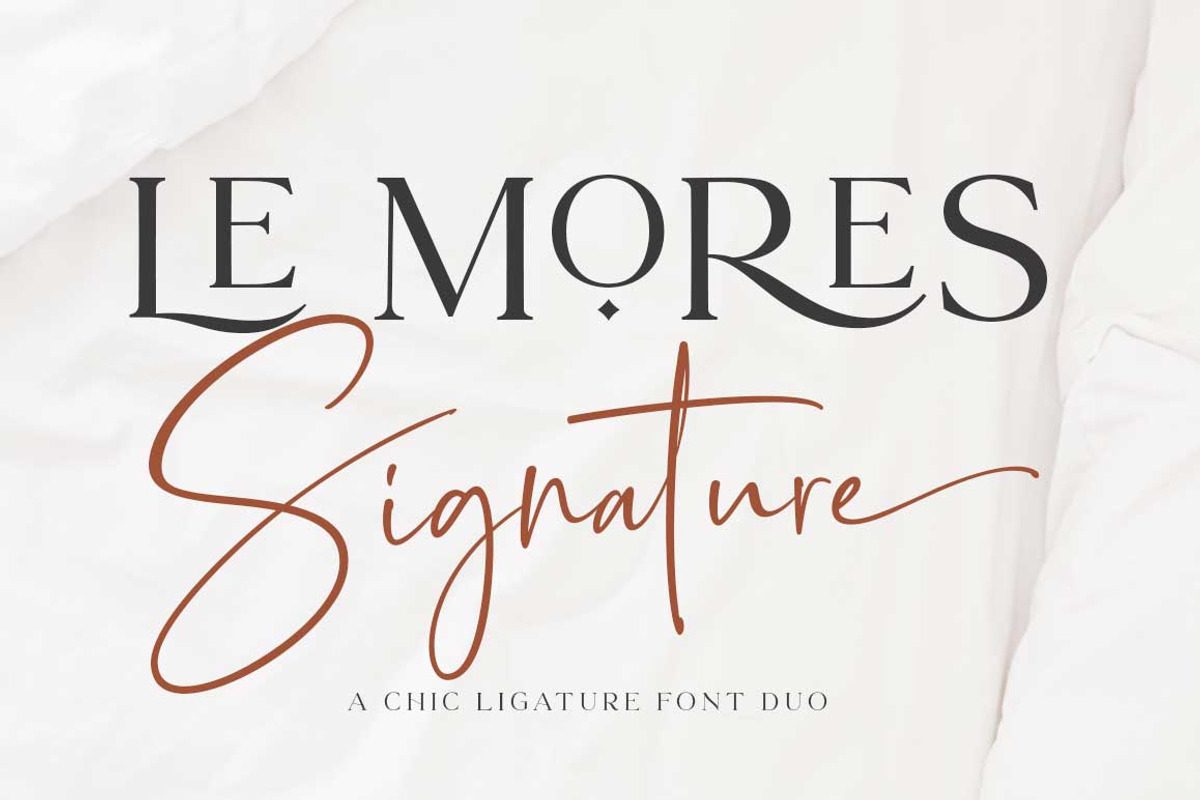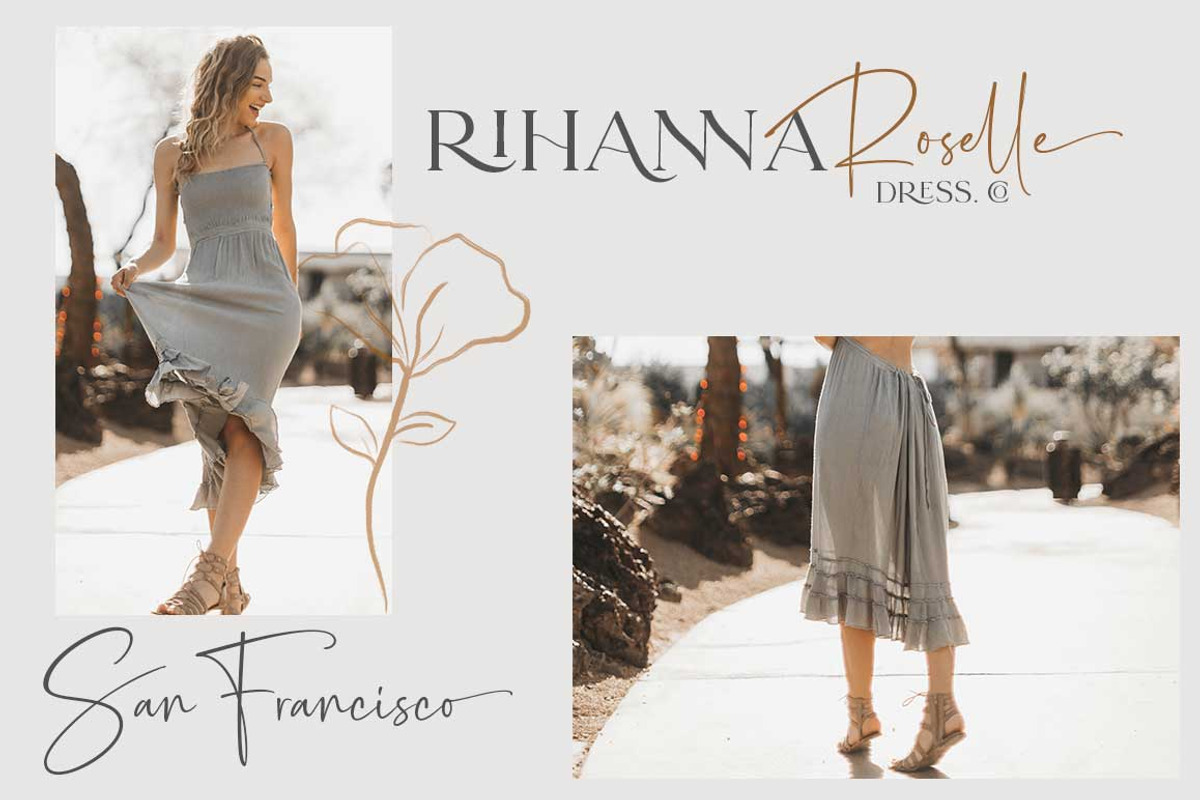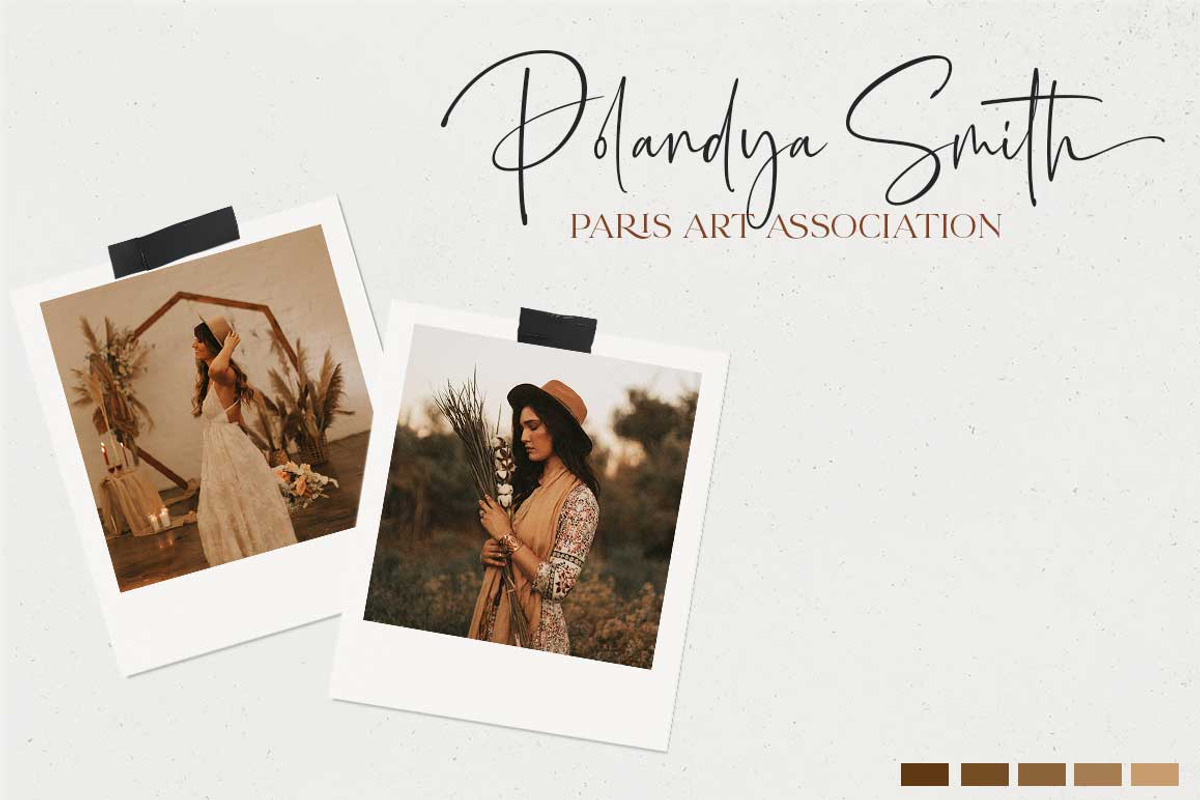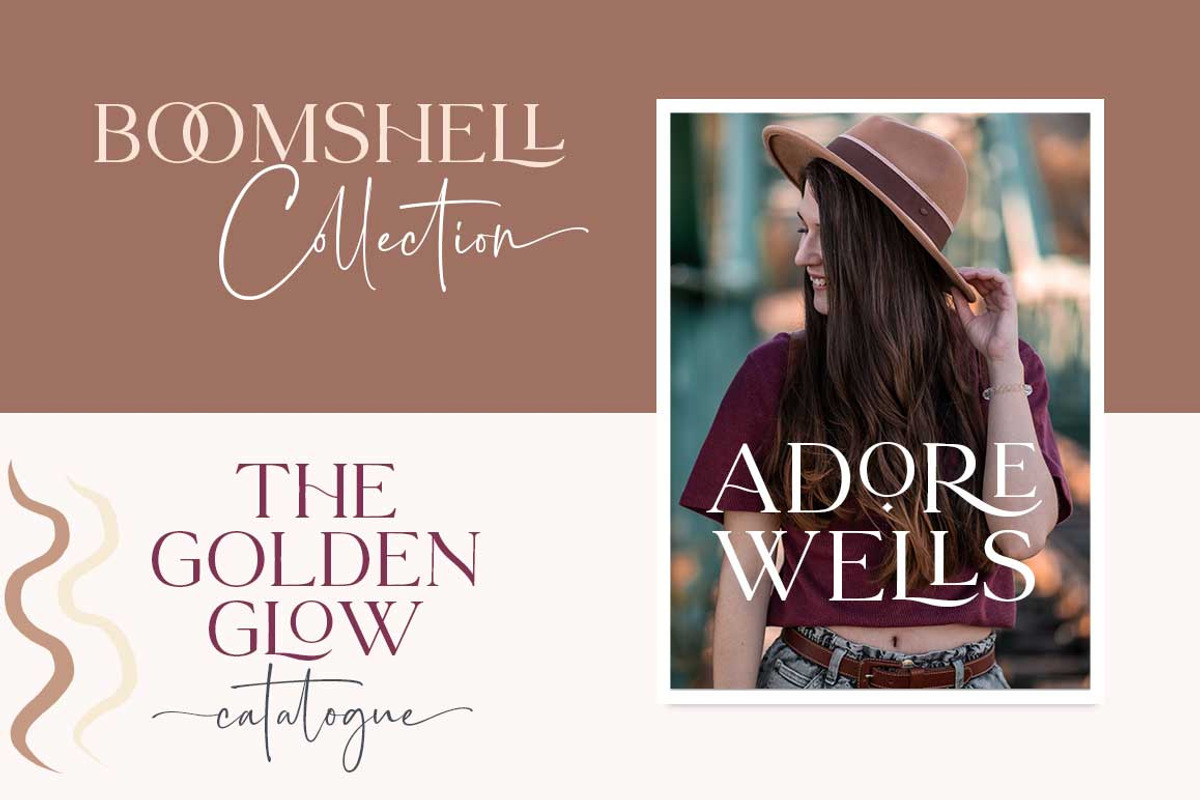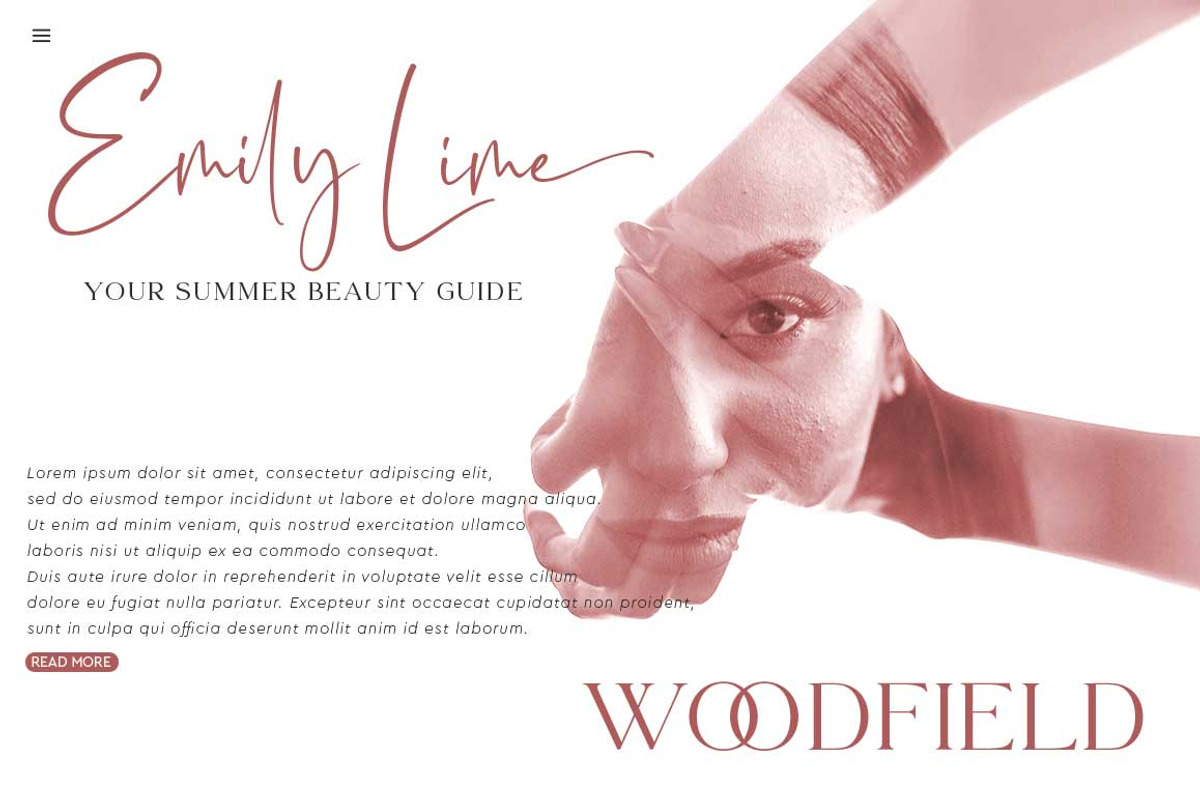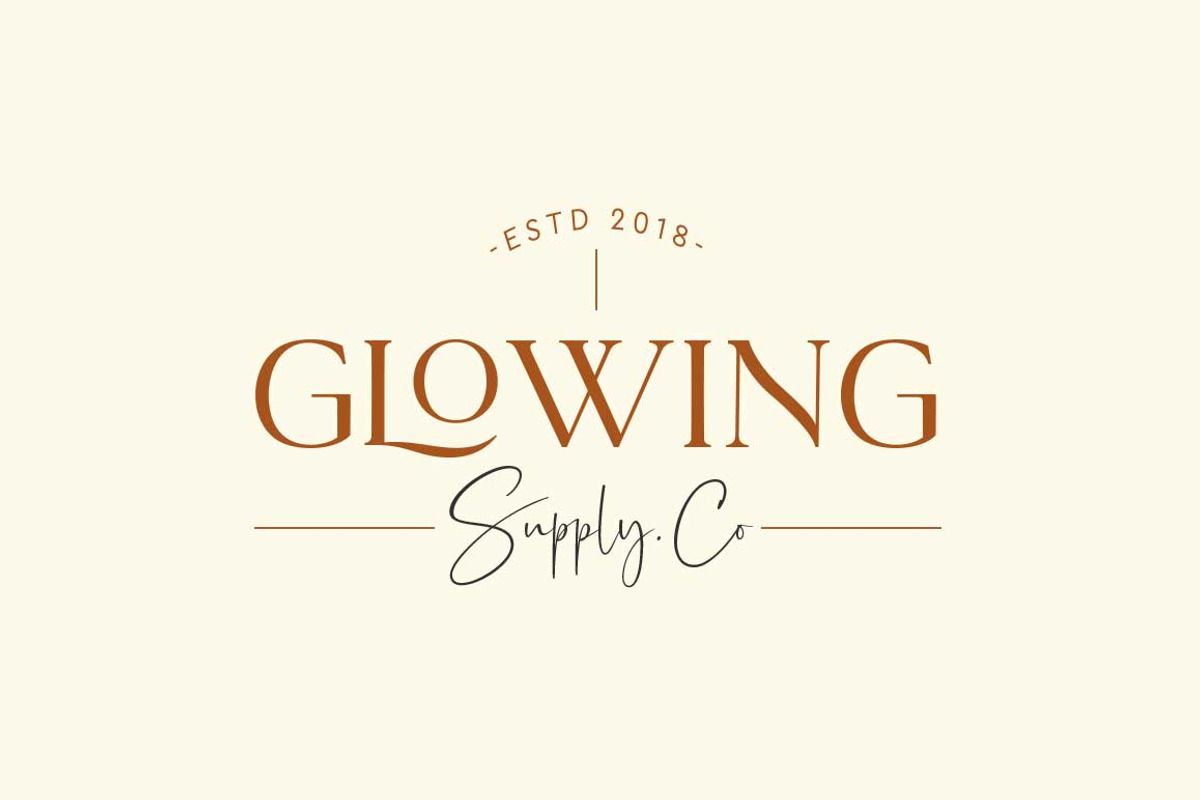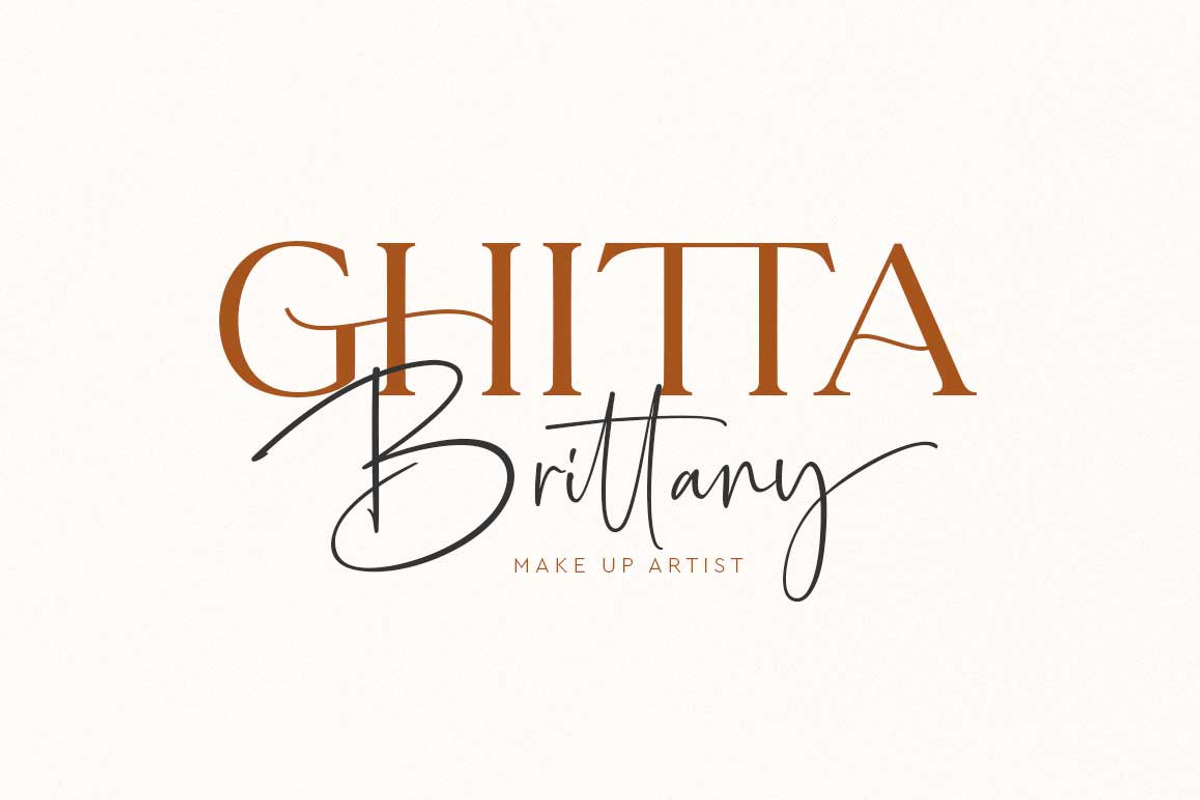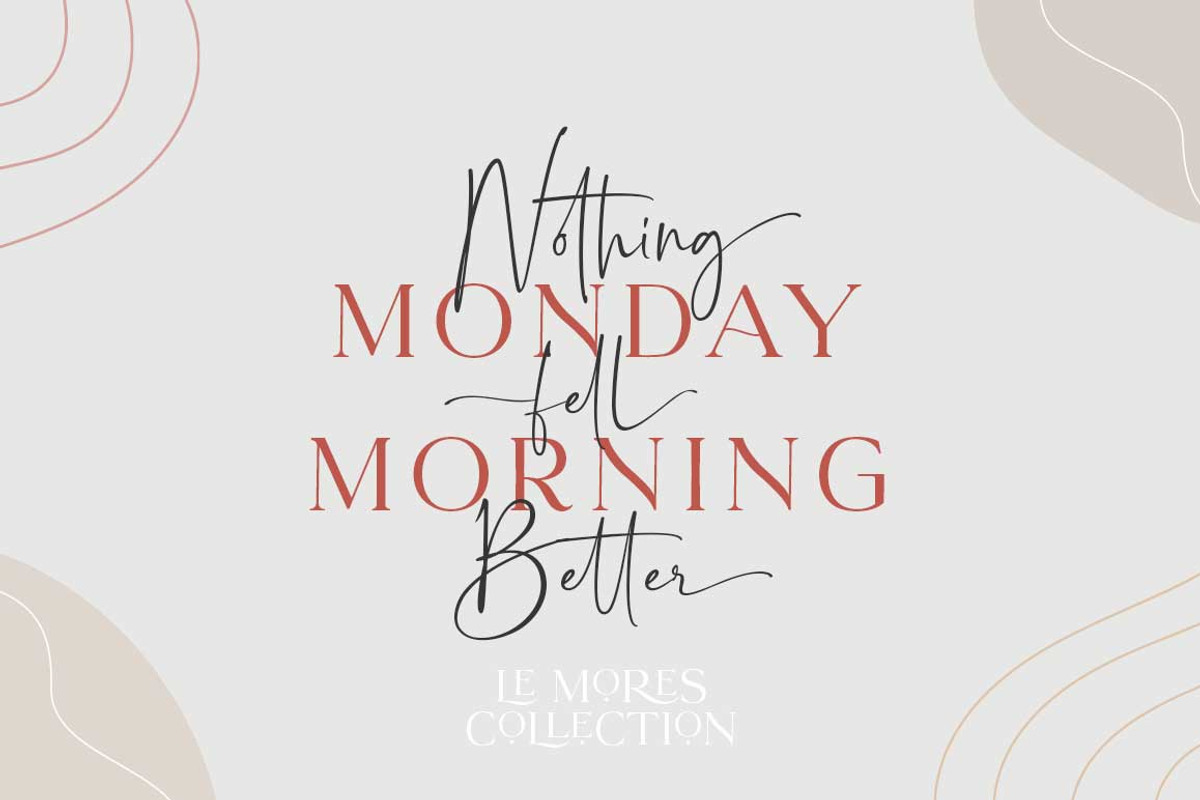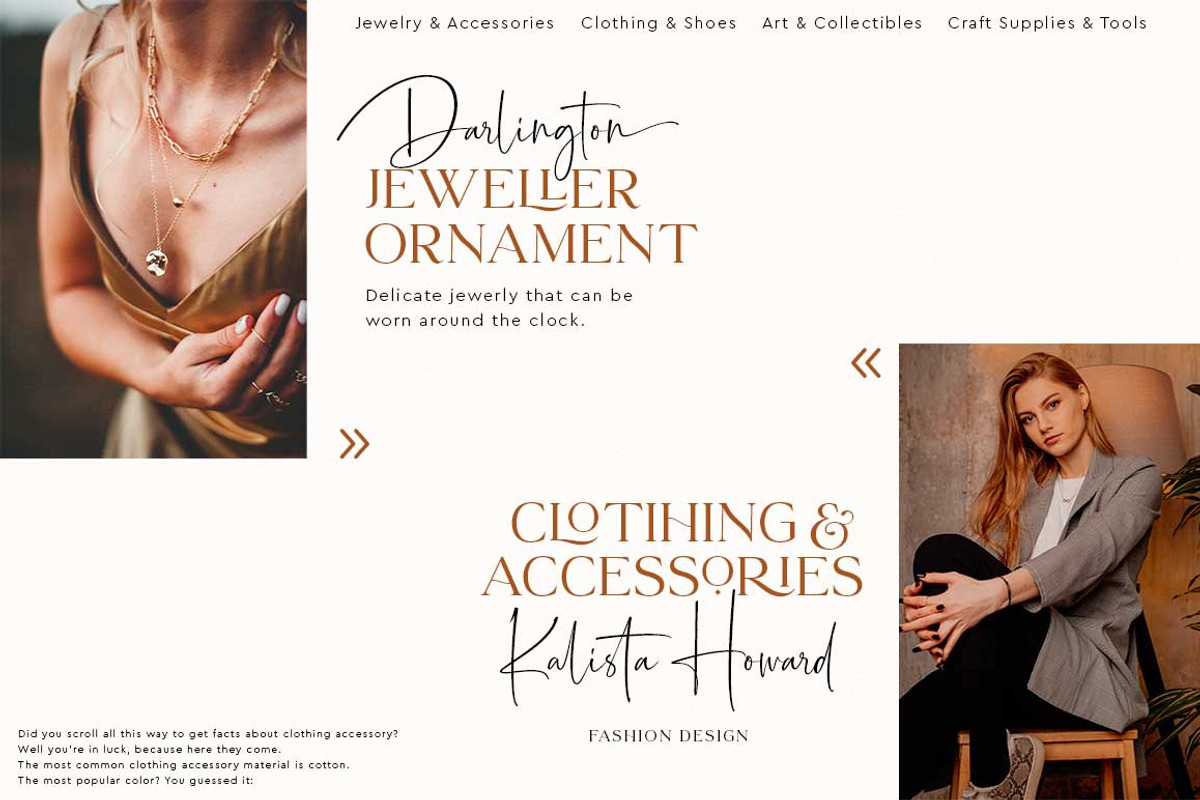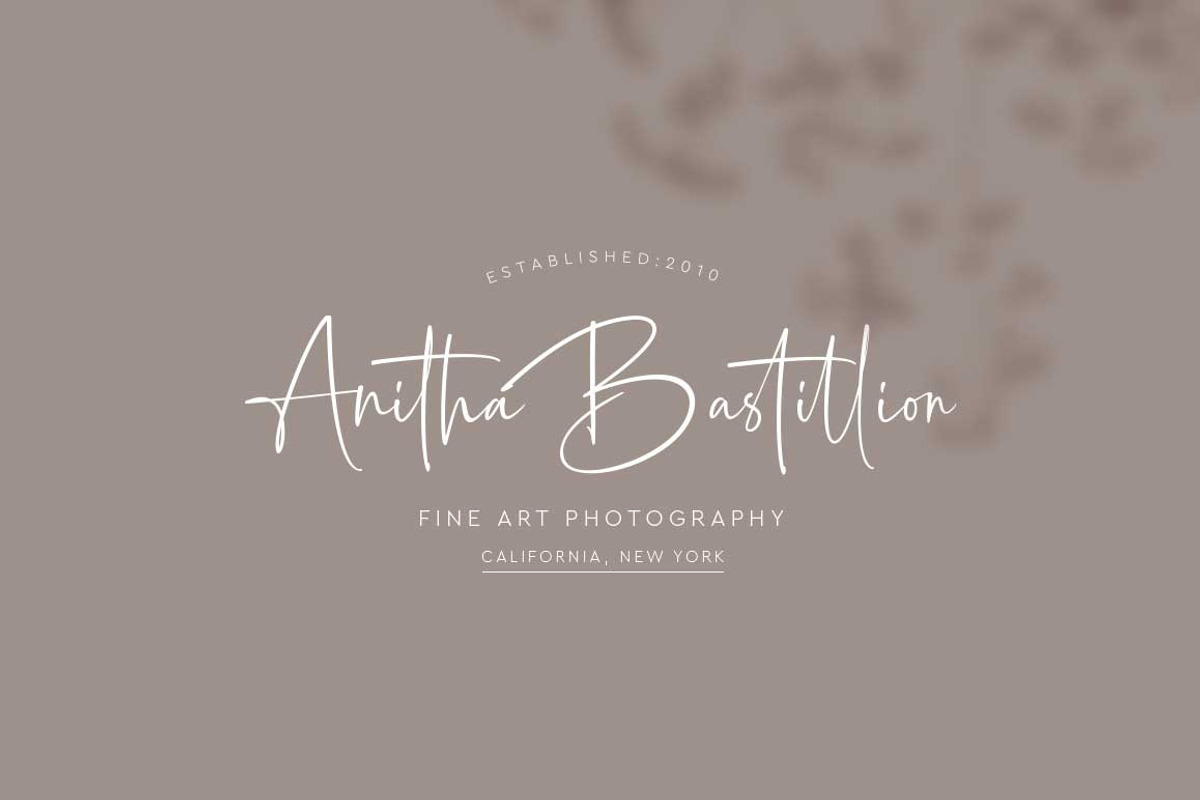
Le Mores Collection
Hi everyone, I want to introduce Le Mores Collection Font Duo, a classy pair of contemporary serif fonts and scripts. With its unique serif ligature font, it is perfect for combining with signature script fonts.
This font is perfect for your various design projects , elegant branding, wedding stationery, romantic book cover designs, classy packaging, album covers, handwritten quotes, greeting cards, unique social media posts, and so much more.
Le Mores Collection Script a modern and elegant signature script font containing upper & lowercase characters, and a variety of alternative letters, all punctuation and numbers. Also contains 64 automatic ligatures to help text flow naturally like the original handwriting.
Le Mores Collection Serif is all Caps stylish & modern containing uppercase characters, all punctuation & numbers. It is also equipped with 32 automatic ligatures and has several alternative letters to enhance your beautiful design.